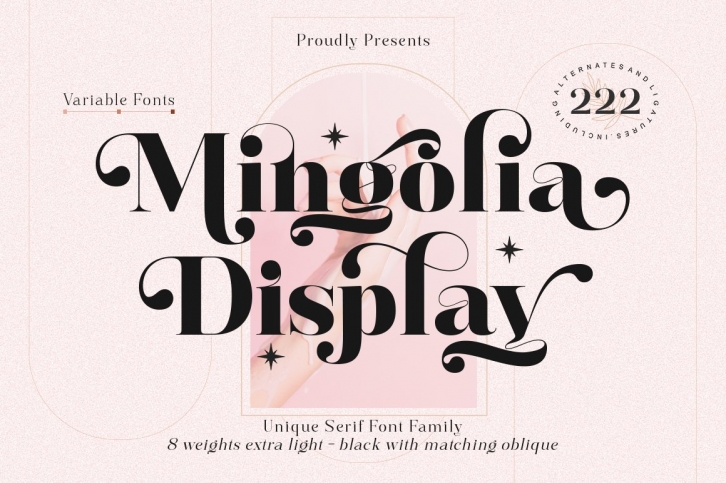
Mingolia Display is a trendy and unique font with an authentic style. It was designed by MegaType and it's a great choice for creative people who need such a font. It was released on July 20, 2022 and the file size is 16.15 MB. Mingolia Display will add an organic vibe to any design idea!